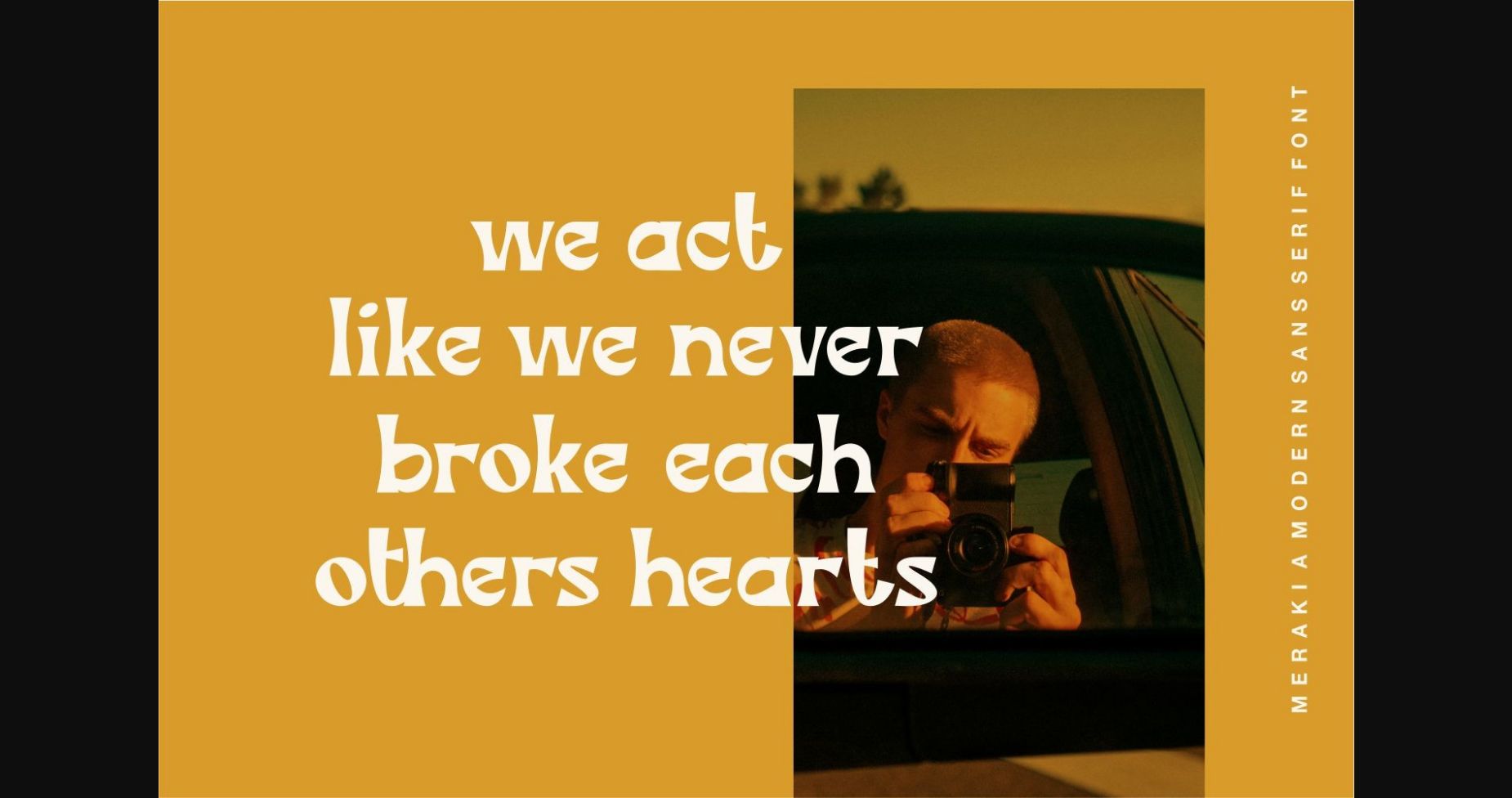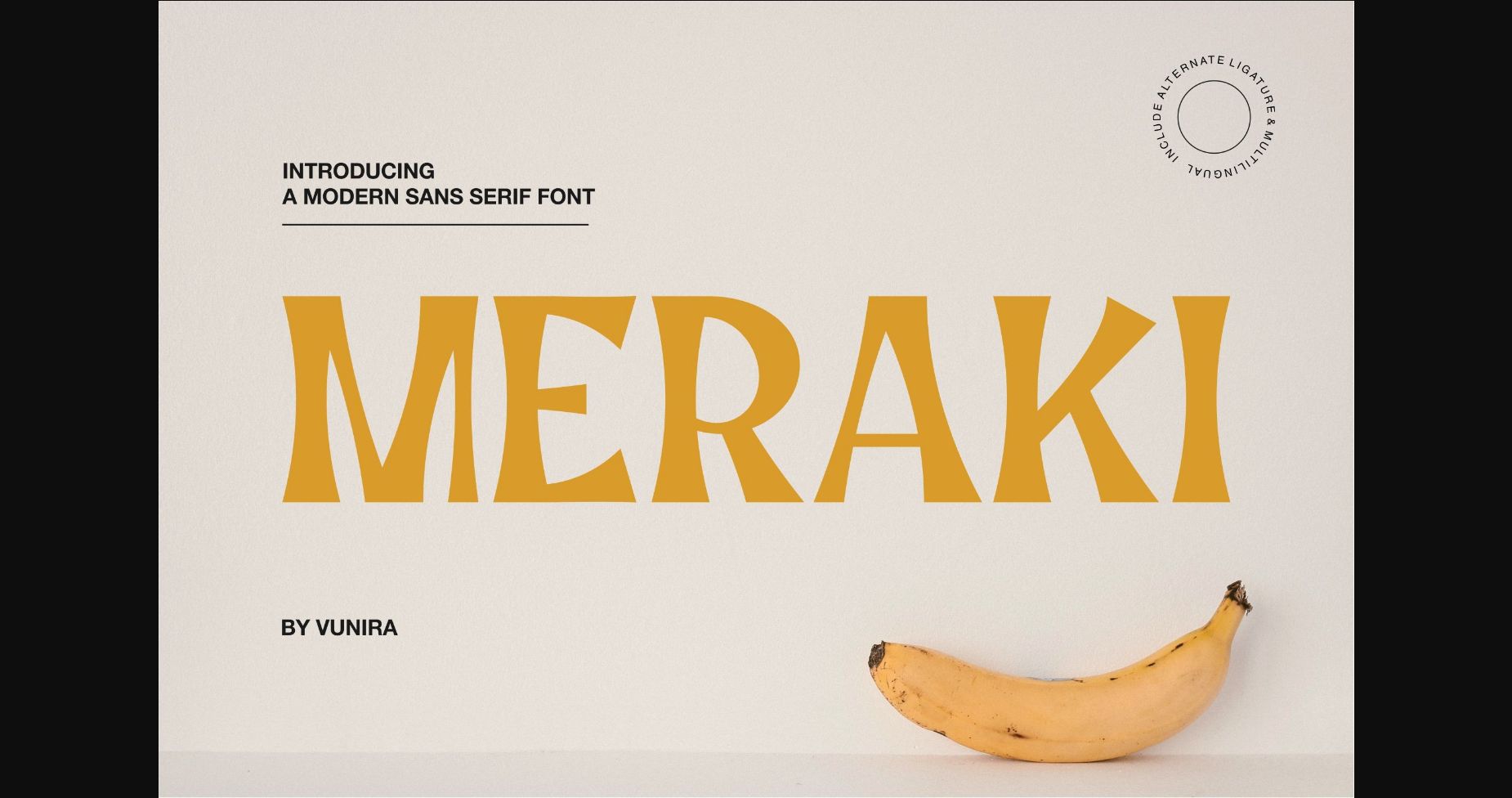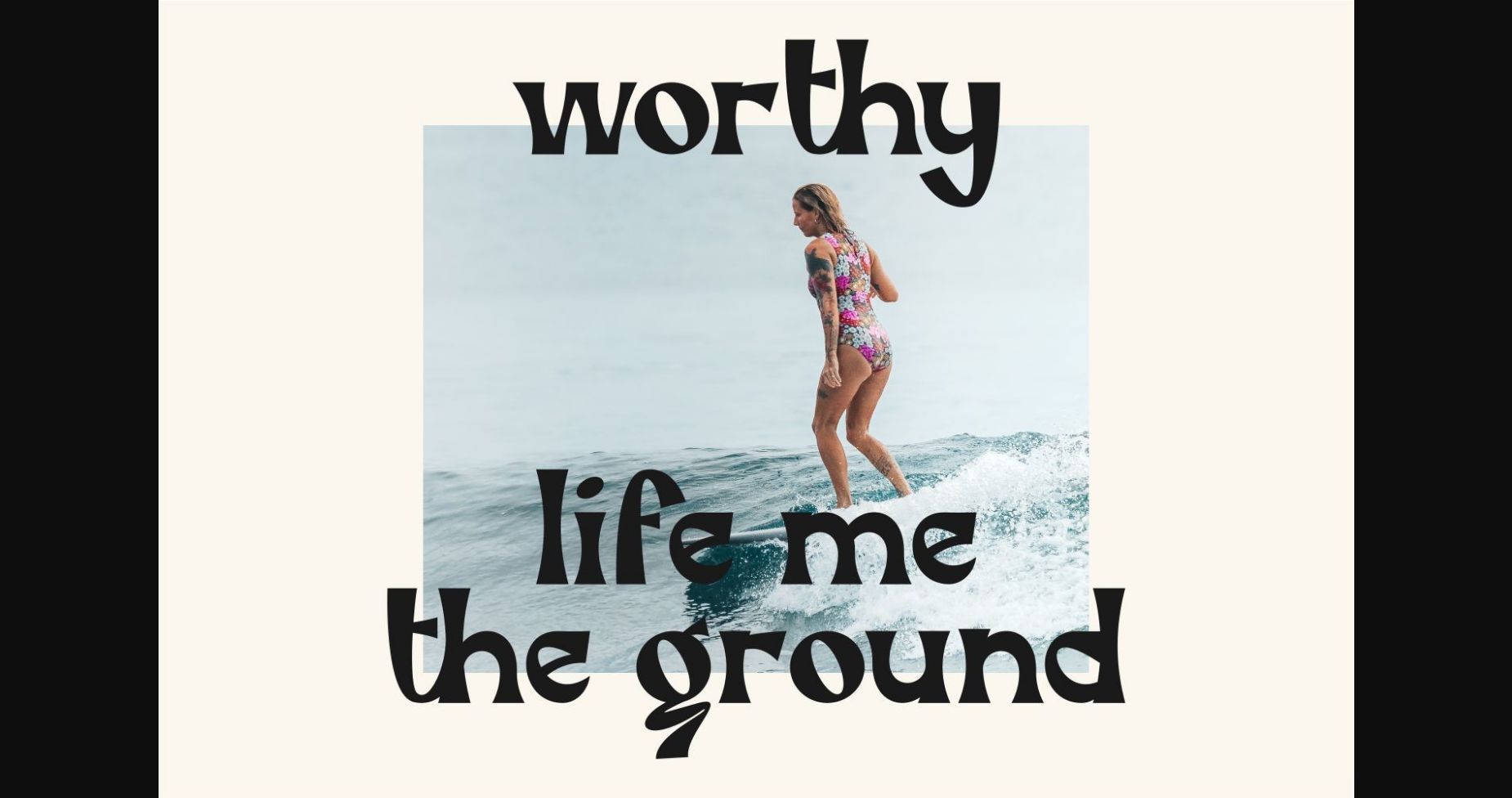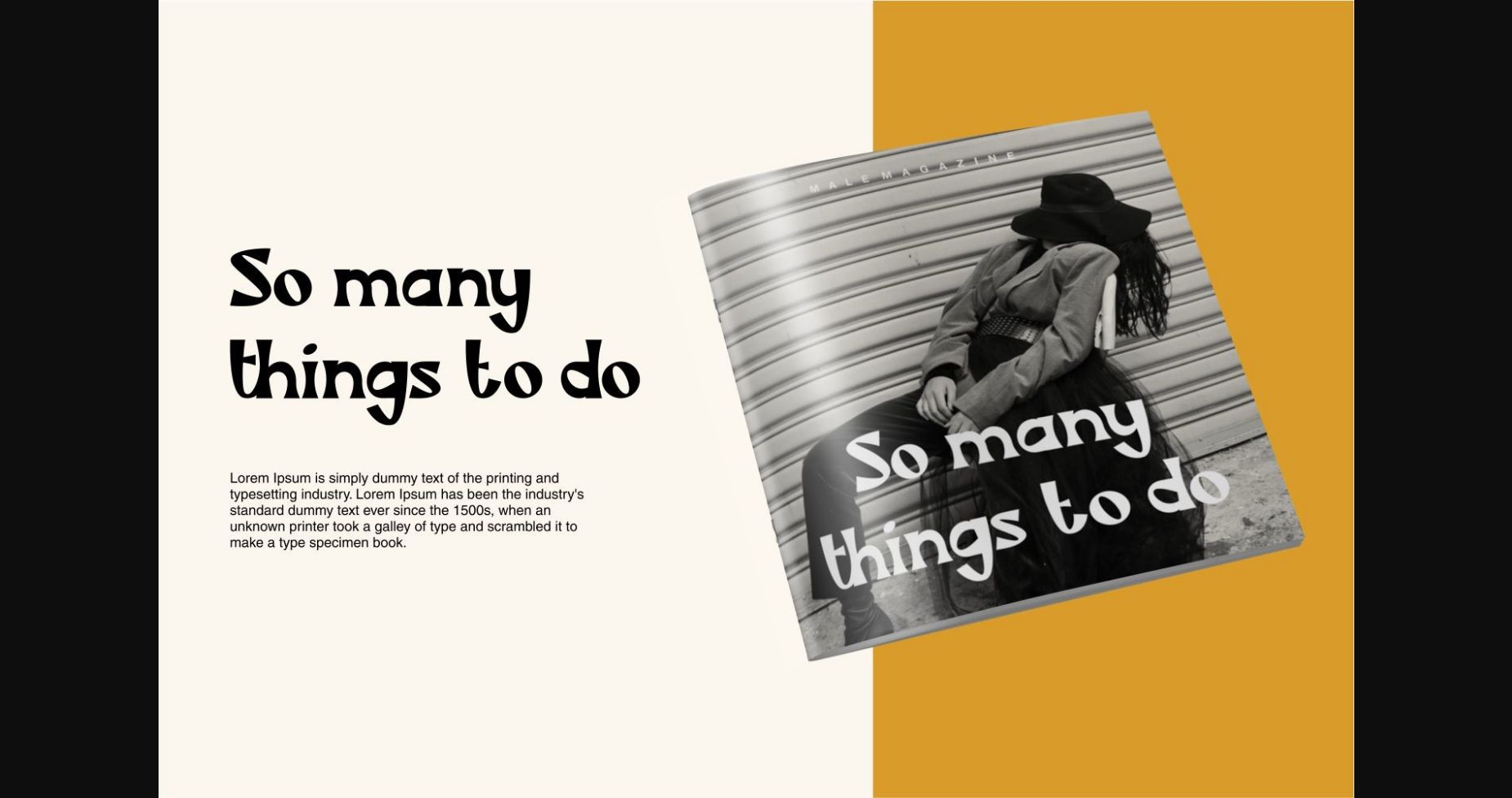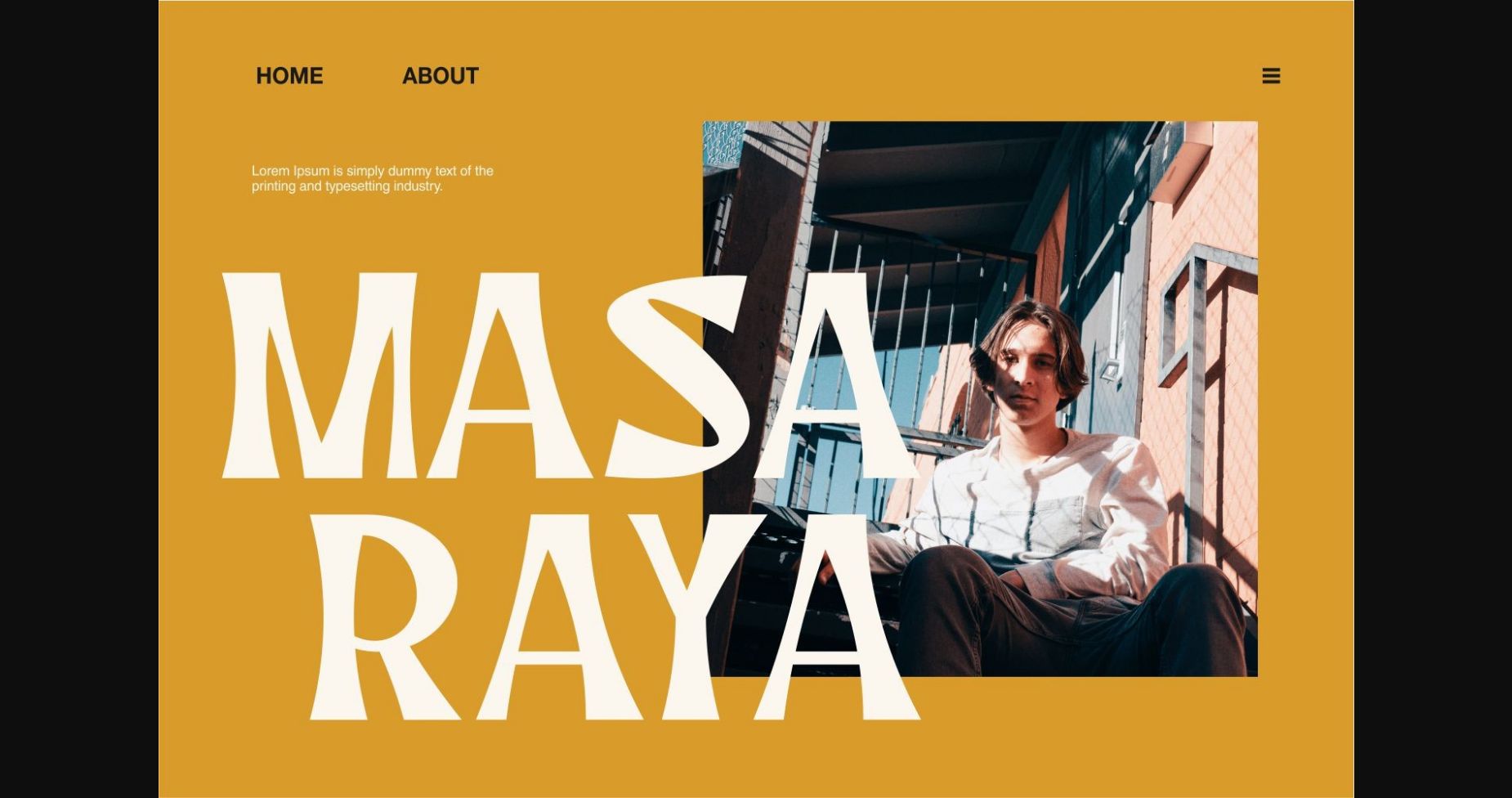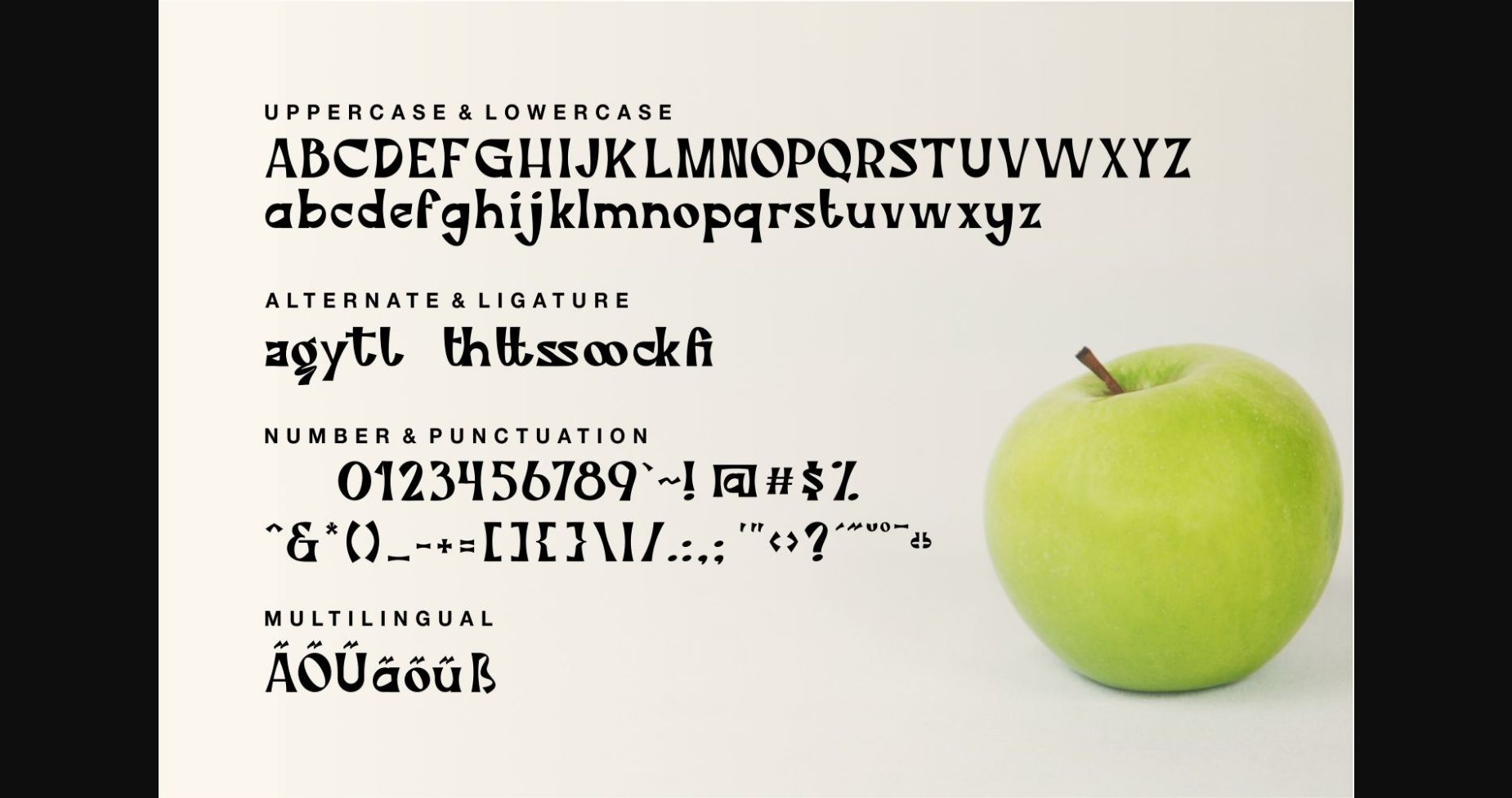
Meraki Font
About Meraki Font
Meraki is a sleek and modern sans-serif font that exudes sophistication and elegance. With its clean lines and sharp angles, Meraki is the perfect choice for those who want to make a bold statement with their typography. This font is perfect for branding, editorial design, and high-end advertising campaigns.